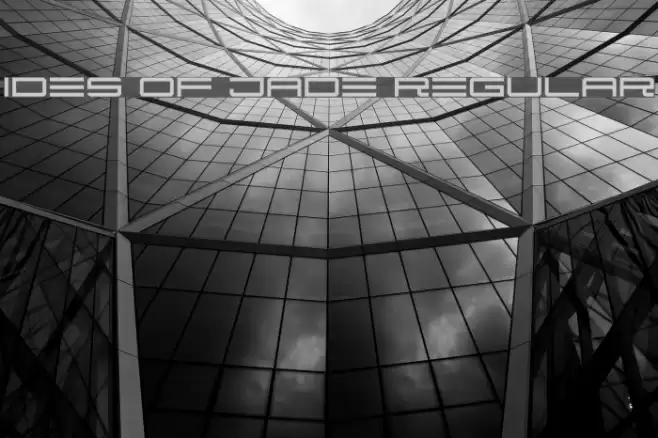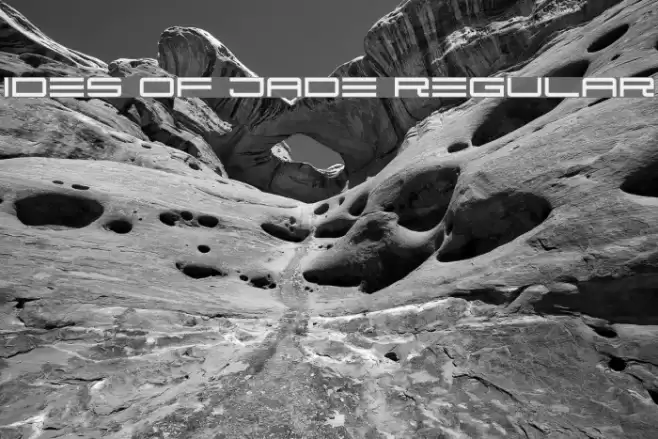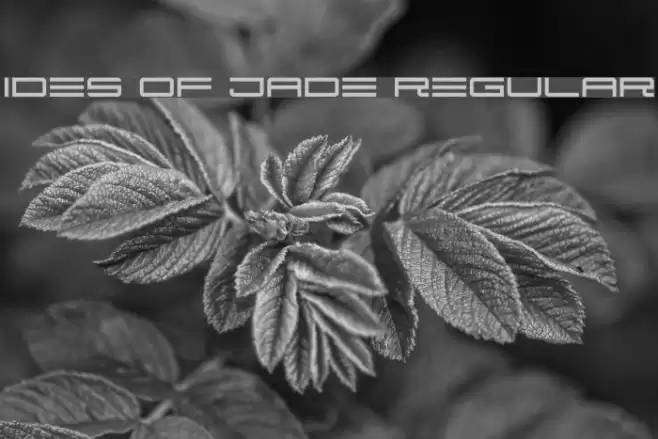
Ides of Jade Regular Font
Ides of Jade Regular Description
This font features a futuristic and geometric design, characterized by its clean lines and angular shapes. The uppercase letters are uniform in height, with a distinct block-like appearance that gives a sense of modernity and technological advancement. The lowercase letters maintain the same geometric style, ensuring consistency across the typeface. Numbers and special characters are designed to match the overall aesthetic, with a focus on symmetry and balance. The font's unique style makes it stand out, ideal for projects that require a contemporary and innovative look.
A futuristic, geometric font with clean lines and angular shapes from Sci-fi fonts.
- Proposed Projects: Ideal for technology branding, sci-fi themed designs, modern posters, and innovative product packaging.